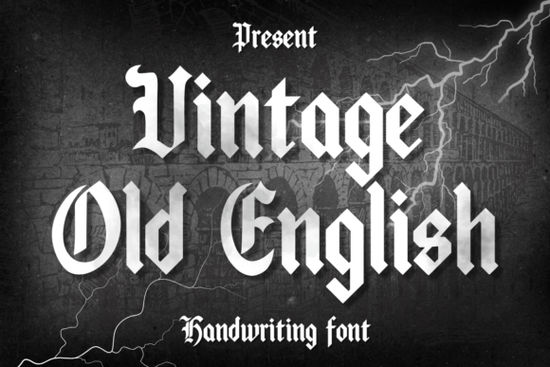
If you're looking for a classic blackletter font that feels both timeless and hand-crafted, the Vintage Old English Font is a solid choice. It’s not overly ornate or hard to read just clean, authentic, and quietly expressive. Whether you’re sketching ideas in a notebook, designing a wedding invitation, or prepping files for a print-on-demand mug shop, this font holds up well across small and large sizes. It’s especially helpful if you want that old-world charm without sacrificing legibility.
What kind of projects work best with Vintage Old English?
This font shines where personality and tradition matter. Think handwritten-style greeting cards, journal covers, vintage-inspired business logos (like for a local bakery or bookshop), or even subtle watermark text on printable stationery. Because it’s a true blackletter design not a decorative script it reads clearly at 14–16pt when used for short phrases or headings. You’ll find it works just as well on fabric prints as it does on Instagram story overlays or café chalkboard menus.
It’s also a thoughtful pick for tattoo artists building portfolio mockups. While not meant for full sleeves, Tattoo Studio Font offers sharper line contrast for flash sheets, whereas Vintage Old English leans into warmth and flow great for banner headers or shop signage.
How does it compare to other blackletter fonts on Creative Fabrica?
Blackletter fonts vary widely in tone and use case. Some lean gothic and dramatic; others feel more Californian and relaxed. For example, California Style Font has open counters and lighter weight ideal for surf brands or casual apparel. Captain Victory Font brings bolder strokes and military-era confidence, perfect for patch designs or workshop posters.
Vintage Old English sits comfortably between them: neither too rigid nor too playful. Its letterforms have gentle curves, balanced spacing, and consistent stroke contrast making it easier to pair with sans-serif body text than many traditional blackletters. That versatility helps small businesses keep branding cohesive across social posts, packaging, and email headers.
One thing to keep in mind: blackletter fonts like this one are rarely ideal for long paragraphs or website body text. They’re best used for headlines, quotes, labels, and short callouts where their character adds meaning, not distraction.
Where else might you spot this style?
You’ll recognize the influence of Vintage Old English Font in historic church inscriptions, early American broadsides, and even some classic beer labels. It’s rooted in medieval scribal traditions but adapted for modern screens and printers so it renders cleanly whether you’re exporting from Illustrator or typing directly into Cricut Design Space.
If you’ve tried other blackletter fonts and found them too dense or hard to kern, this one’s worth testing alongside your usual workflow. Try it at 24pt over a neutral background first then scale down to see how readable “&” or lowercase “e” stays. You’ll likely notice how evenly the letters sit on the baseline, which saves time adjusting individual glyphs.
- ✅ You’re using it for short-form text not full-page articles or legal disclaimers
- ✅ You’ve tested it at your intended size (especially if printing on curved surfaces like mugs)
- ✅ You’re pairing it with a simple, highly legible companion font (like Montserrat or Lora)
- ✅ You’re aware that stylistic alternates (if included) may need manual activation in design apps like Affinity or Photoshop
Start simple: open a blank document, type your shop name or a seasonal phrase like “Autumn Gatherings,” and try Vintage Old English Font at three different sizes. See which one feels most natural not just visually, but in how it supports your message. That’s often the best way to know if a font fits your voice.